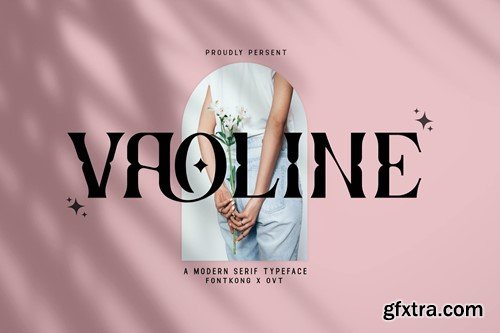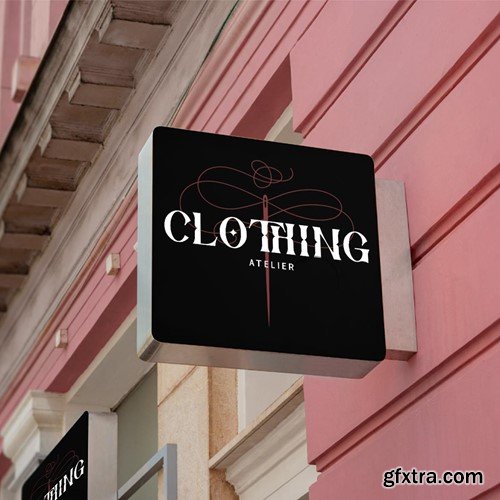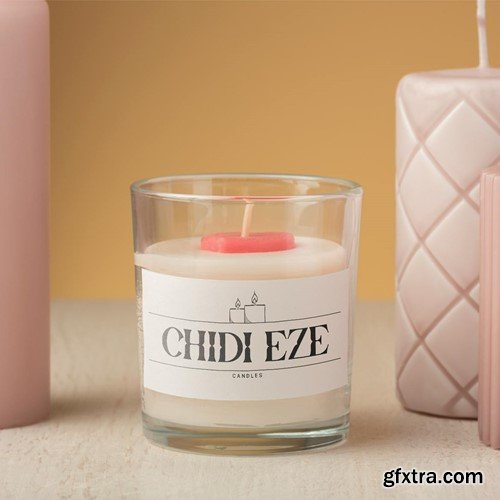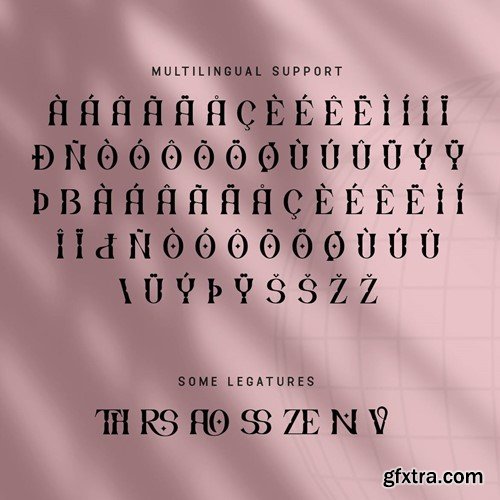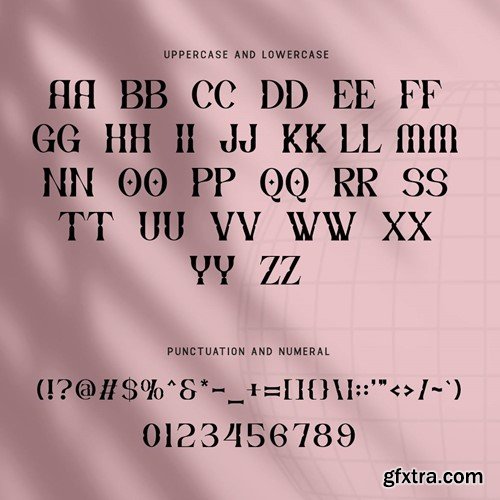
瓦洛宁 - 现代衬线字体 V6NEK9U
Vaoline - Modern Serif Typeface Meet "Vaoline," a modern serif typeface that redefines traditional elegance with a contemporary twist. Perfect for designers looking to infuse their work with a blend of sophistication and modernity, Vaoline offers a crisp, clean design characterized by its distinctive serifs and balanced structure. This typeface is expertly crafted to provide exceptional readability and versatility, making it ideal for a wide range of applications—from editorial content in magazines and books to impactful branding and upscale advertising. Vaoline’s robust character set includes multiple weights, italics, numerals, punctuation, and extensive language support, catering to global creative needs. Whether it’s a professional presentation, a stunning logo, or an elegant invitation, Vaoline elevates your project with its refined yet fresh appearance. Its unique charm makes it a standout choice for those seeking to make a lasting impression. You will receive the font files in TTF, OTF, and WOFF formats Vaoline is your essential serif typeface for adding a touch of modern elegance to any design.